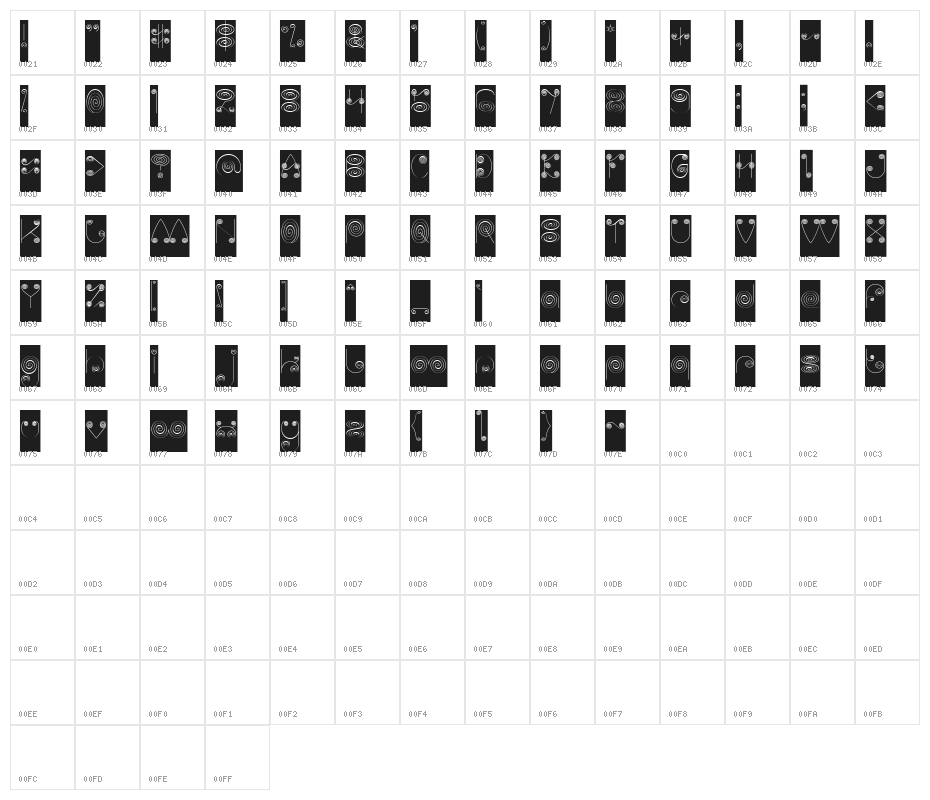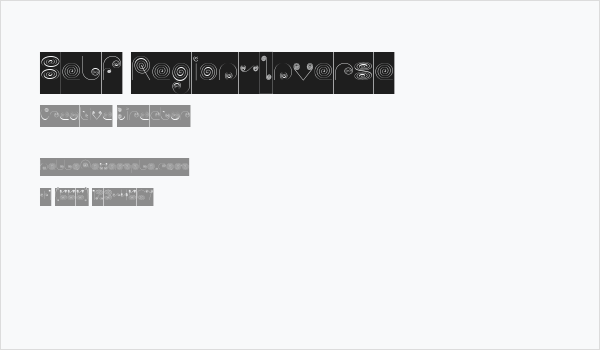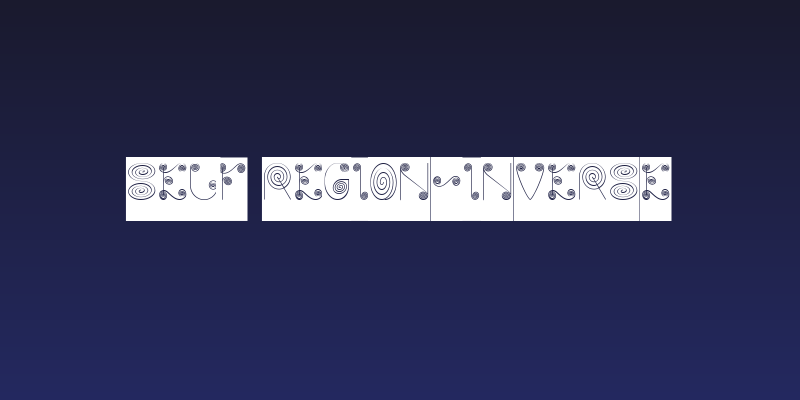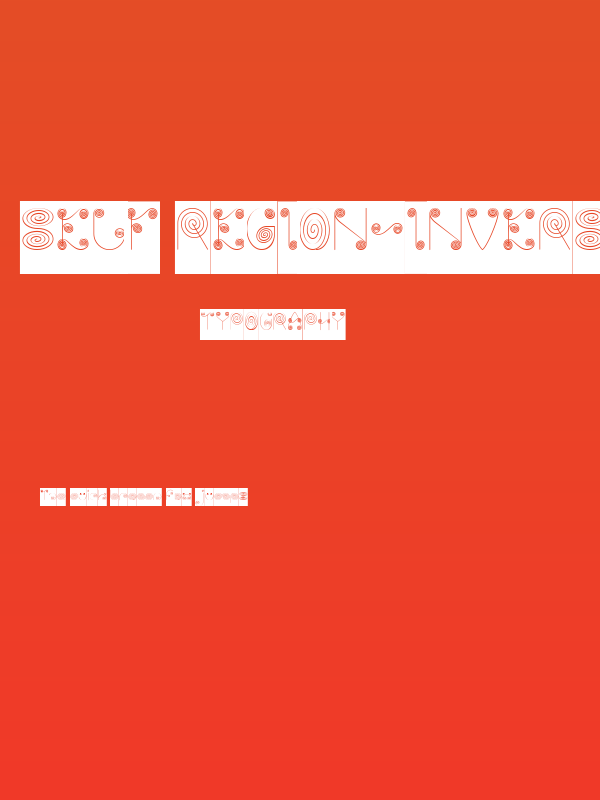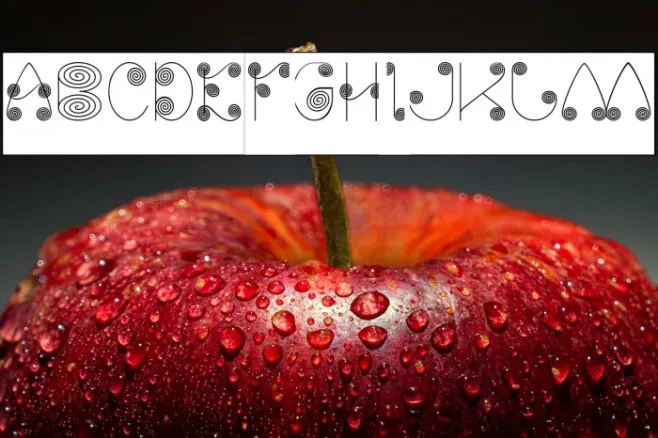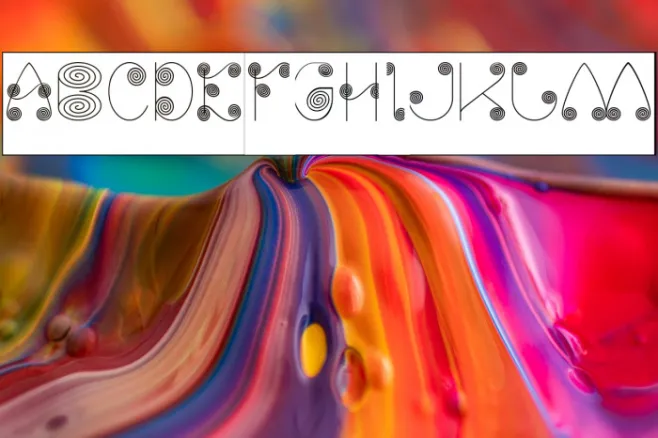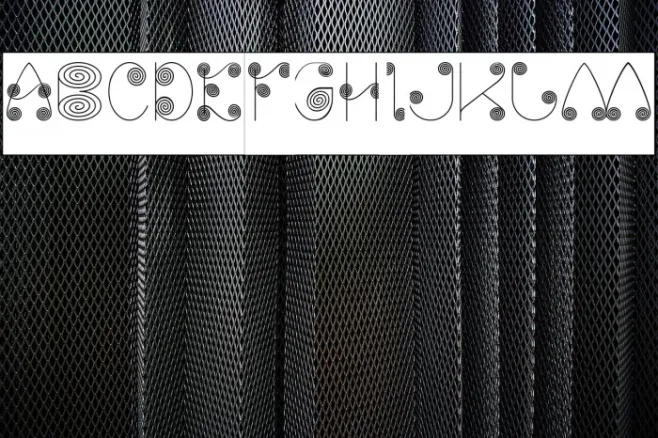
Self Region-Inverse Font
Self Region-Inverse Description
This font features a unique and intricate design with each character incorporating spiral patterns. The letters and numbers are crafted with a continuous line that forms elegant, swirling shapes, giving the font a whimsical and artistic appearance. The spirals are consistent across all characters, creating a cohesive look. The font is highly decorative, making it stand out with its playful and creative style. It is not suitable for body text due to its complexity but excels in capturing attention in headlines or artistic projects.
| Use Case | Headlines, Logos, Artistic projects |
| Proposed Projects | Ideal for artistic projects, creative posters, unique branding, and eye-catching headlines. |